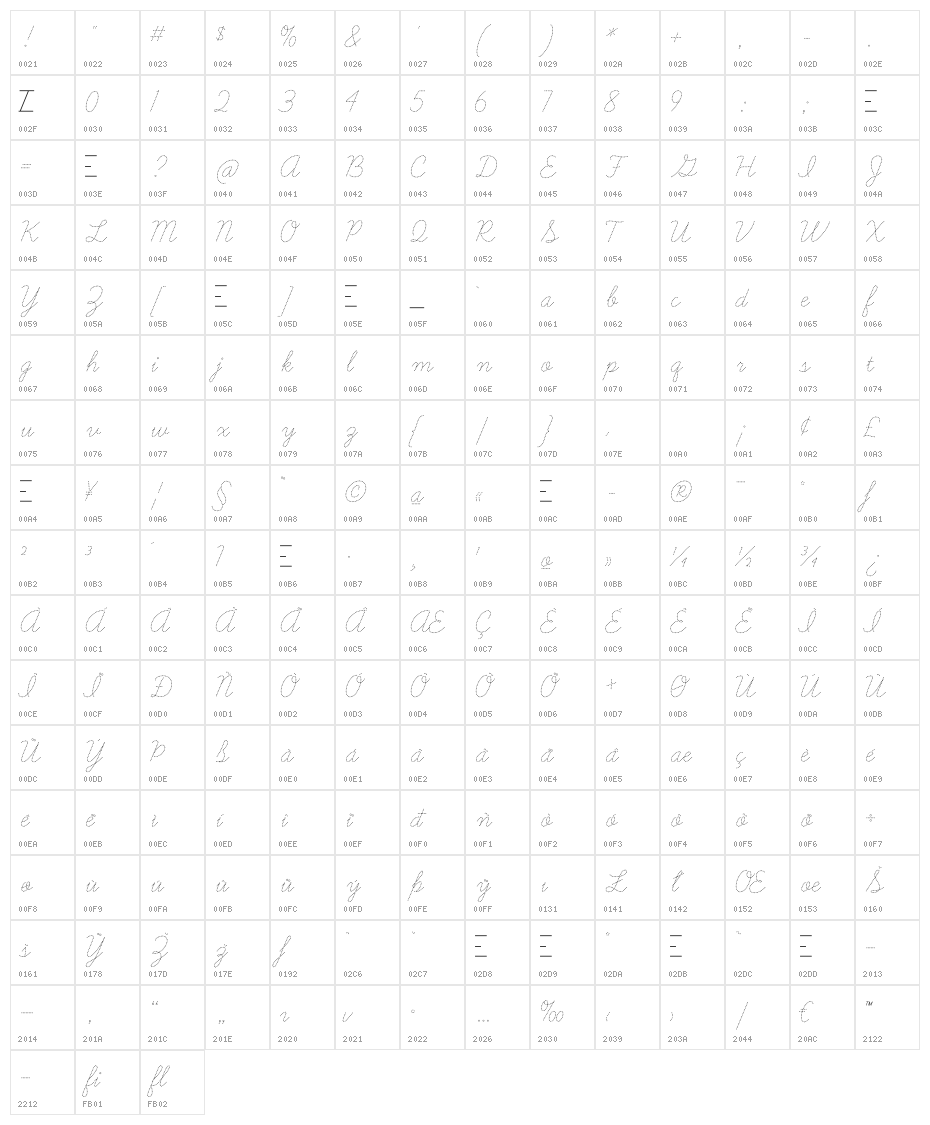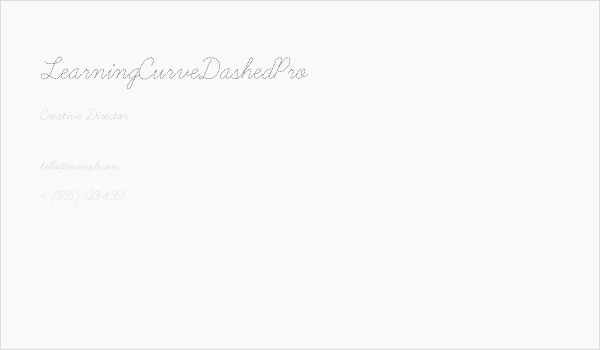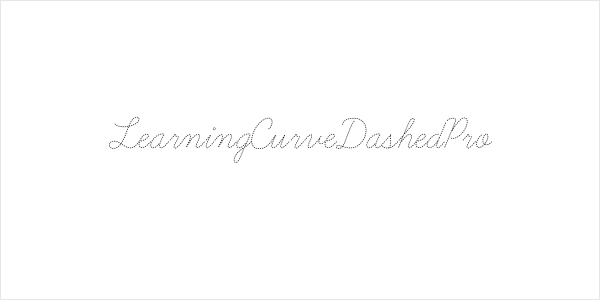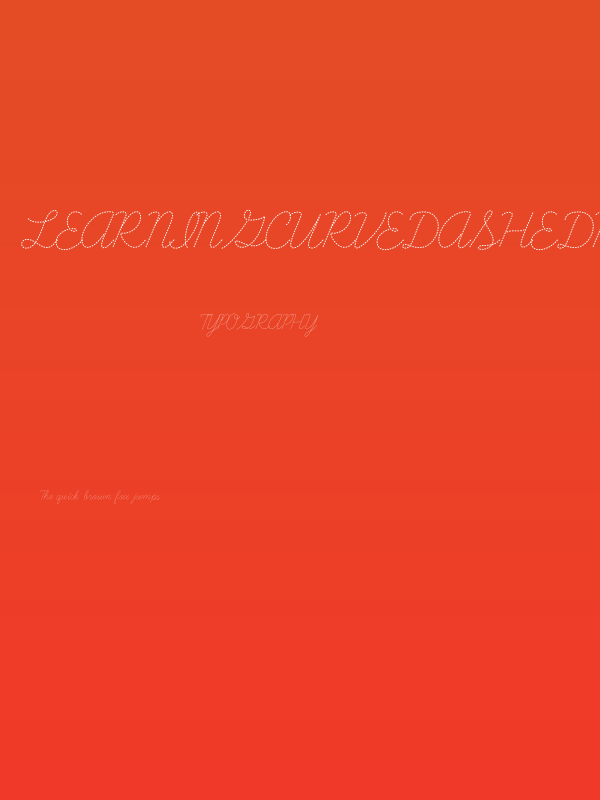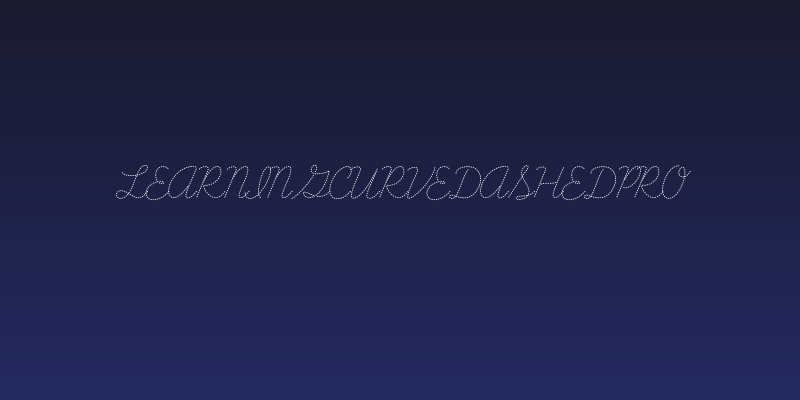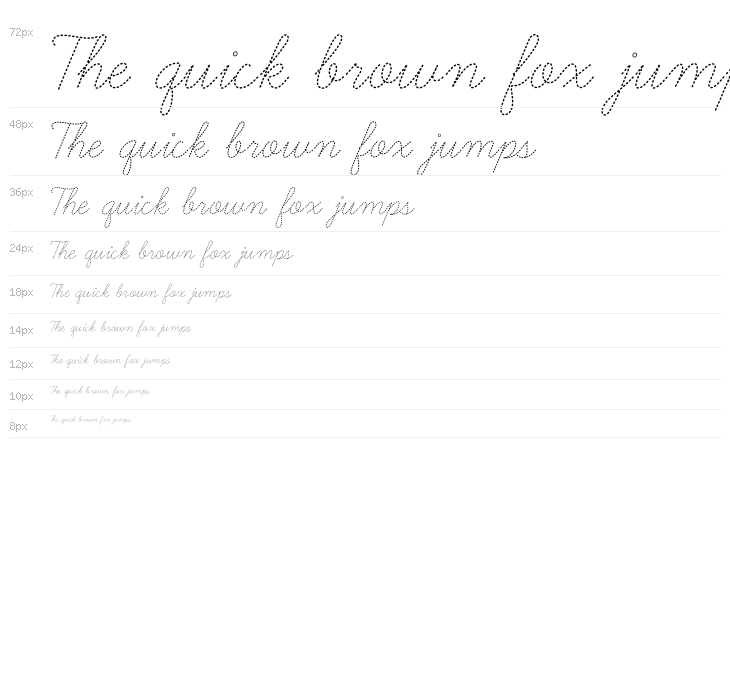
LearningCurveDashedPro Font
| Estilo general | Educational, Playful |
| Caso de uso | Educational materials, Handwriting practice |
| Proyectos propuestos | Ideal for educational materials, handwriting practice sheets, children's books, and playful design projects. |